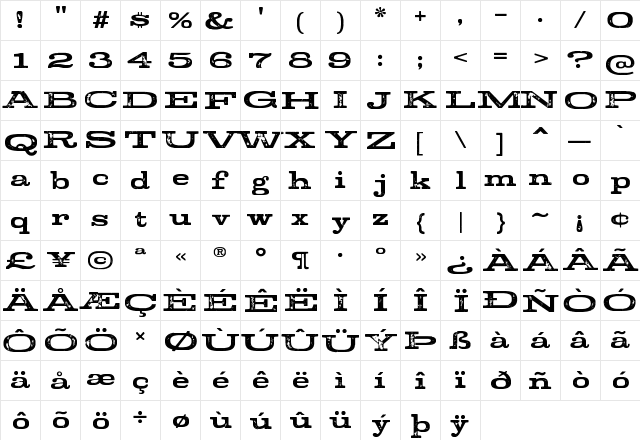
Stud Regular
Design Context for Stud Typeface
Stud takes a measured approach to typography — its balanced proportions and neutral character make it a reliable workhorse for both digital and print work.